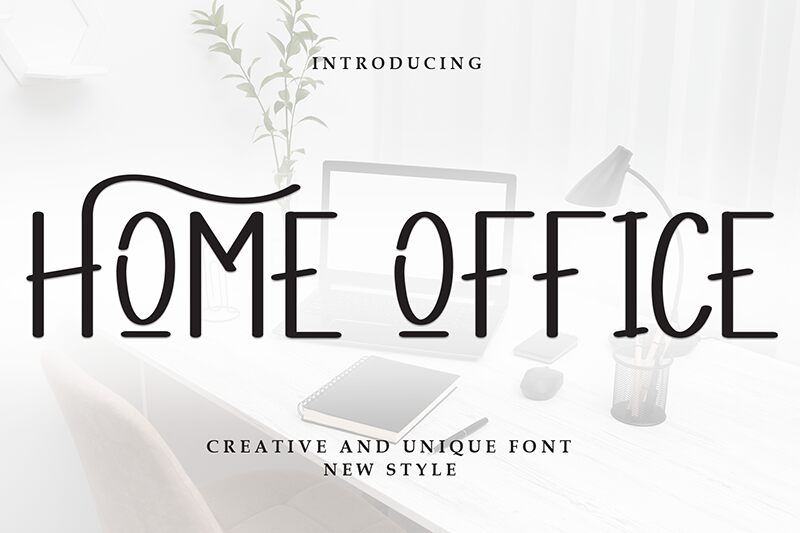
Home Office
Home Office font by Andi Moz is a free condensed display font that fixes a familiar dilemma: you want warm, hand-drawn personality, but you’re short on horizontal space. Its tall, slim letters stack like neat brushstrokes, with slightly wobbled edges and soft, inky terminals that keep things casual without getting messy. The rhythm feels steady and readable, so headlines feel friendly, not chaotic.
Using Home Office, titles snap into narrow layouts—think social graphics, labels, packaging, posters, event flyers, and planners. The lean proportions add energy without shouting, and the subtle texture gives flat designs a tactile lift. Pair this free font with a neutral sans to handle body copy, and let it breathe with a touch of extra line spacing for crisp, welcoming impact.